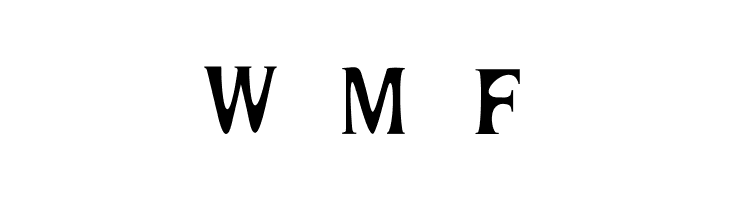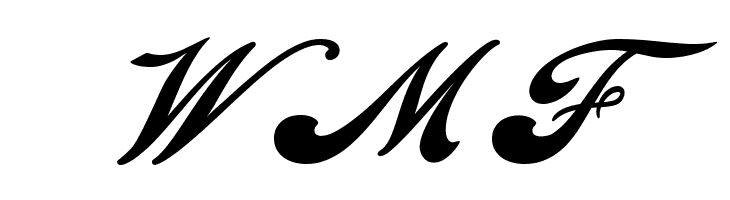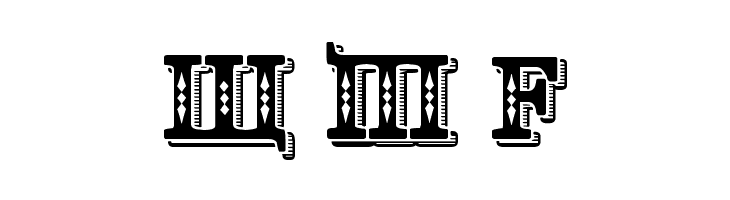
A modern, semi-condensed sans-serif font with a clean and versatile design.
• Maydana Ika
• Literaturnaya Book
• Zilap Africa
A decorative font with geometric patterns and African motifs, ideal for cultural projects.
• Casa da Musica Regular
A hand-drawn, artistic font with a casual and dynamic style.
• AgengSans
A clean, modern font with rounded, playful characters.
• Storyteller Demo
A bold, decorative serif font with floral embellishments.
• Bobbers Personal Use Regular
A bold, cursive script with high contrast and elegant flourishes.
• KR Construction
A playful font with letters embedded in construction vehicle graphics.
• KR Jack In The Box
A playful font with letters emerging from jack-in-the-boxes, perfect for whimsical designs.
• KR Bite Your Lip!
A decorative font with characters enclosed in stylized lips.
• Viceroy of Deacons Regular
A bold, geometric font with a modern yet vintage feel.
• KR Three Flowers
A decorative font with letters in flower pots, topped with three flowers.
• KR Font Sleigh
A decorative font with sleigh motifs, perfect for festive designs.
• KR Steve's Solo
A decorative font with letters embedded in a guitarist silhouette, ideal for music-themed designs.
• KR Firefighter Ron
A bold, 3D font with flame accents and a playful, dynamic style.
• KR Silver Spoons
A decorative font with characters encased in ornate spoon designs.
• Meslo LG L DZ Bold
A bold, monospaced font with a clean and modern design, perfect for coding.
• Red Light Special
• Mensch Mensch Bold Inline
A bold, inline font with a modern yet retro style, ideal for impactful designs.
• Mensch Bold Inline
A bold, modern inline font with a playful and structured design.
• Baris Cerin Regular
A bold, decorative serif font with elegant curves and sharp serifs.
• Bolt Cutter Nasty